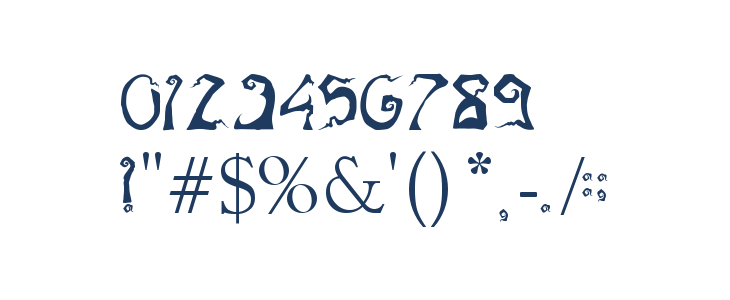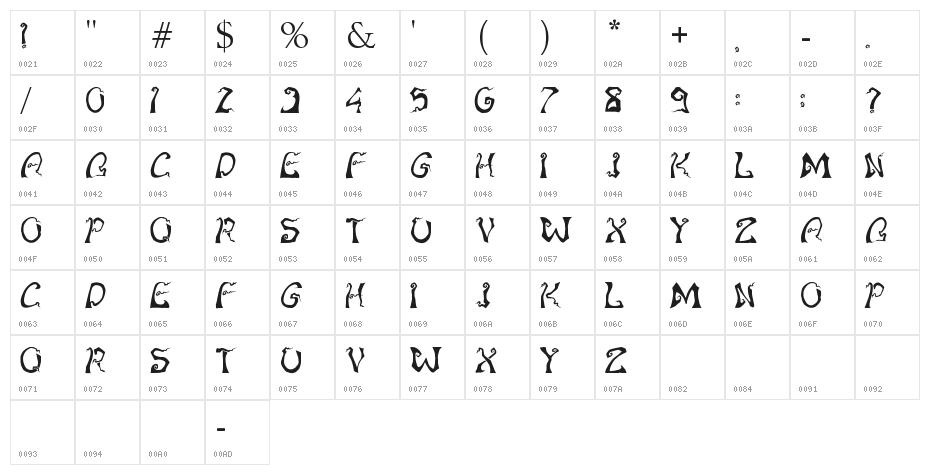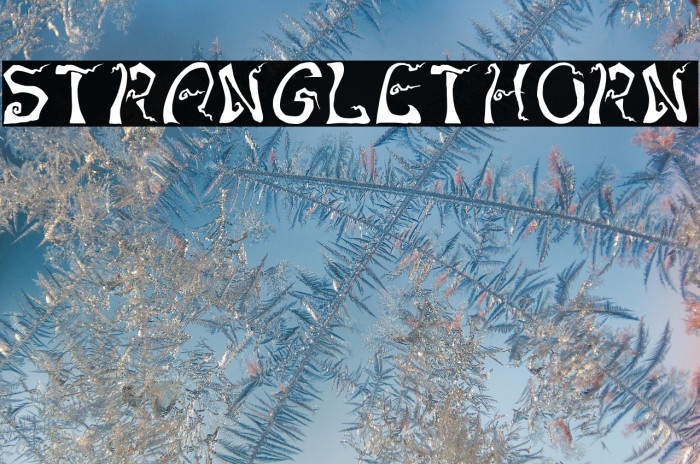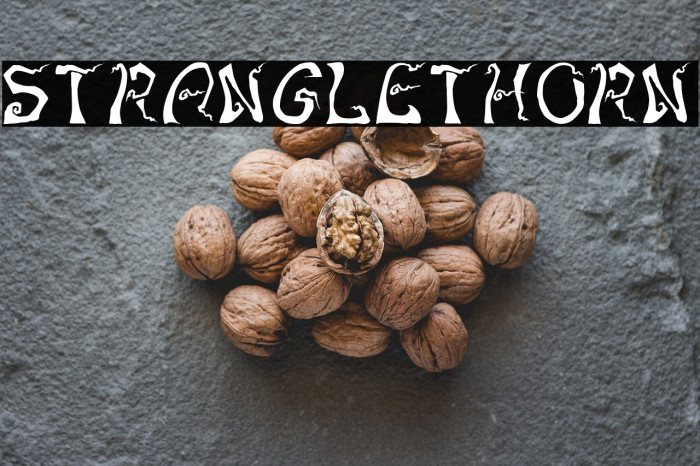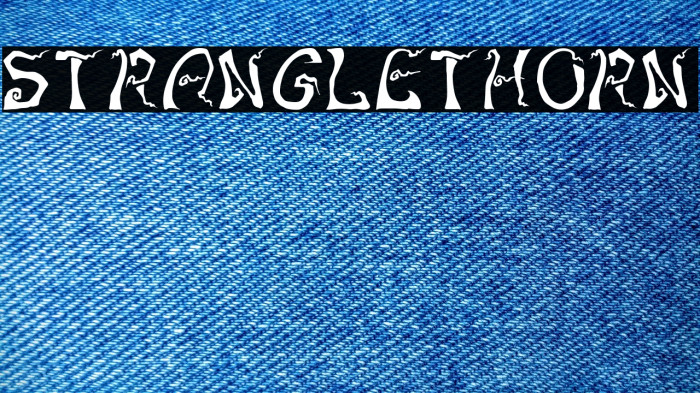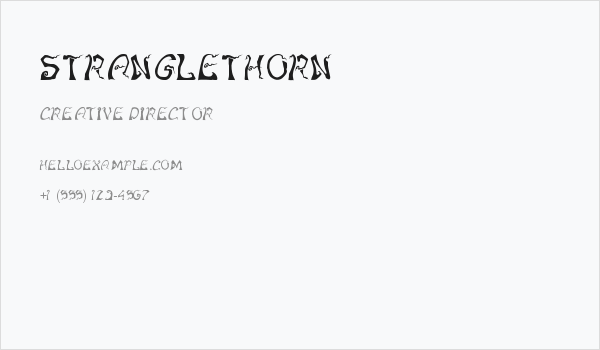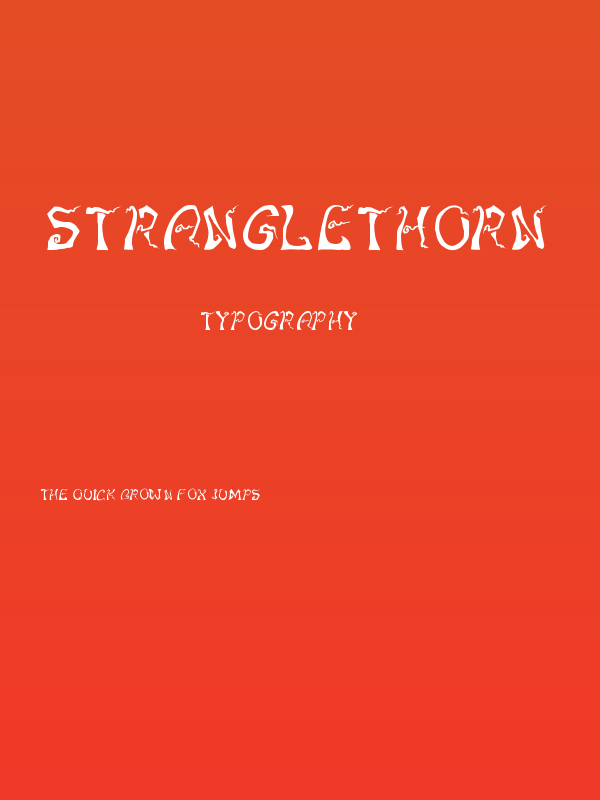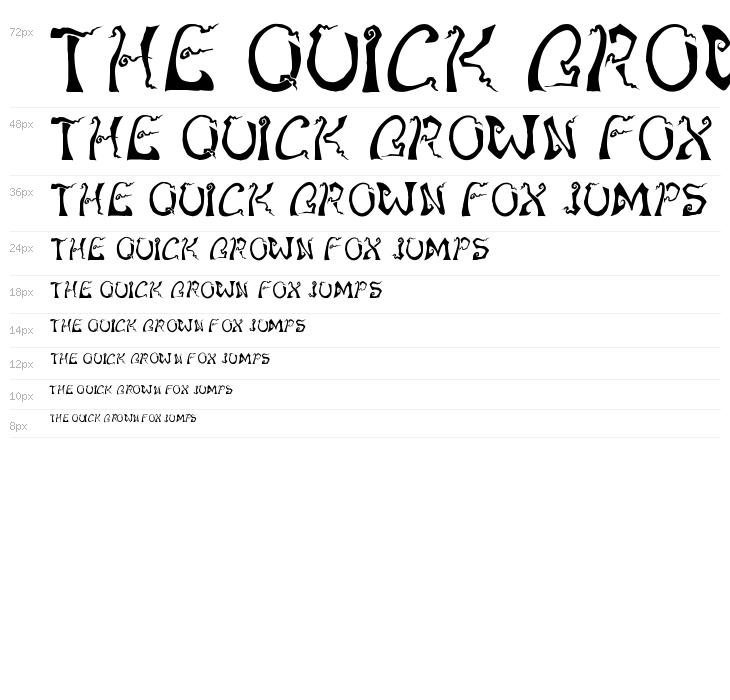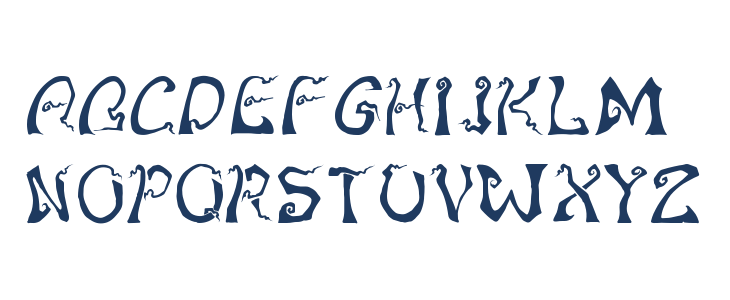
Stranglethorn Font
Stranglethorn Description
This font features a unique and whimsical design, characterized by its irregular and organic shapes that resemble twisting vines or tendrils. The letters have a playful and slightly eerie appearance, with varying stroke thickness that adds to its dynamic and lively feel. The uppercase and lowercase letters maintain a consistent style, while the numbers and special characters integrate seamlessly with the overall theme. This font's distinctive look makes it stand out, ideal for projects that require a touch of fantasy or mystery.
| Proposed Projects | Ideal for fantasy-themed posters, Halloween invitations, video game titles, or any project needing a mystical or mysterious touch. |